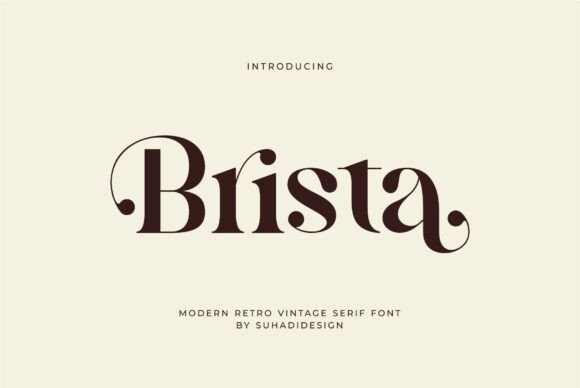
Introduction to Brista Font
Brista is a classy and contemporary serif font.
With its elegant design and stylish ligatures, this font has become a favorite in the market We have kept this font looking elegant, classy, ​​and stylish.